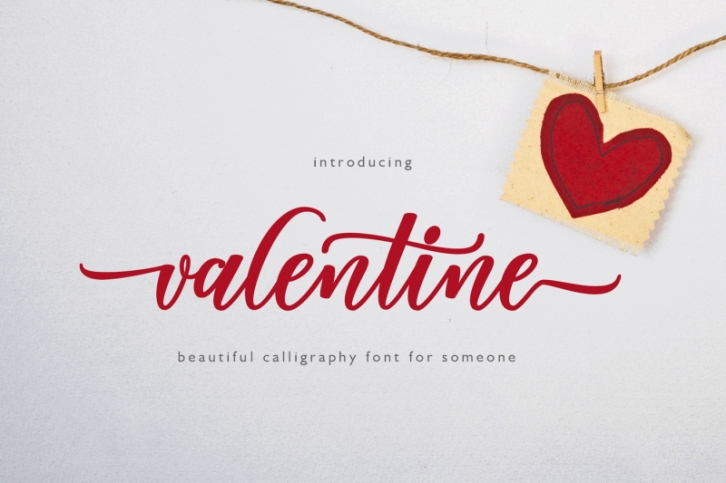
Valentine is another lovely modern calligraphy typefaces, which is combining the style of classic calligraphy with an modern style. combines from copperplate to contemporary typeface with a dancing baseline, modern and elegant touch. including initial and terminal letters, alternates, and ligatures.
Can be used for various purposes.such as headings, logos, wedding invitation, t-shirt, letterhead, signage, lable, news, posters, badges etc.